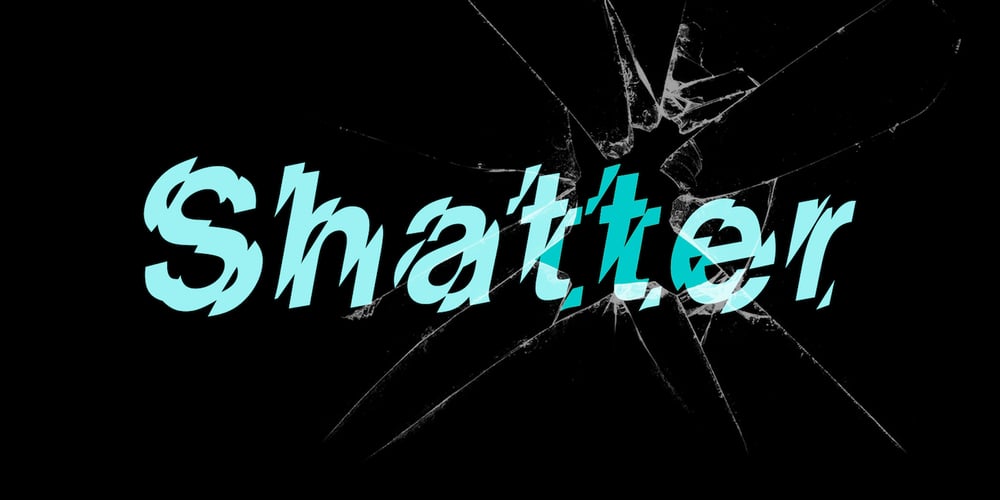
Shatter Font Family was designed by Vic Carless and published by ITC. Shatter contains 1 styles and family package options. A basic sans serif letterform was used to create the impression of broken glass in this unique typeface. Created by talented designer Vic Carless.